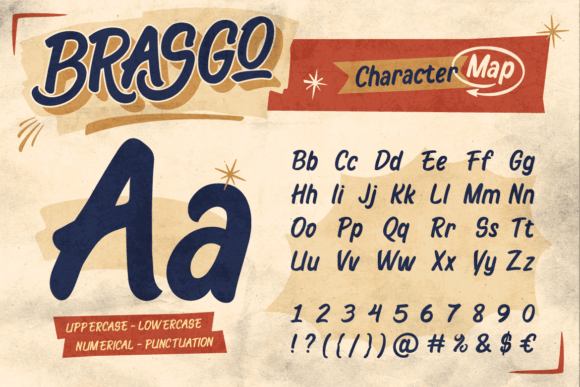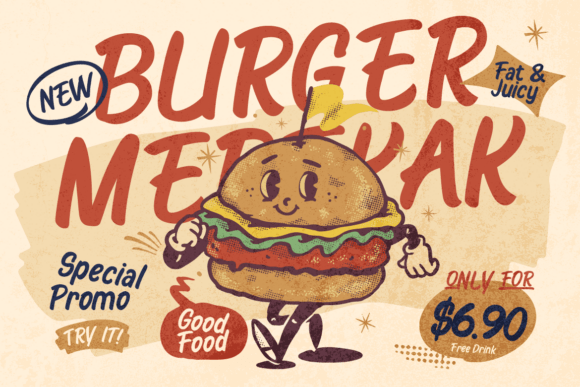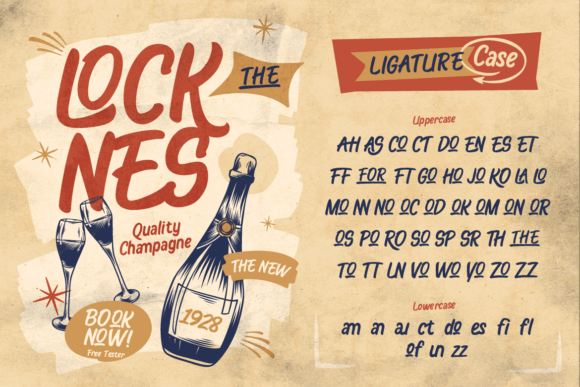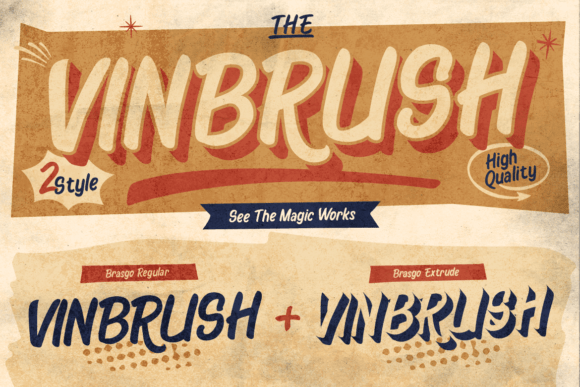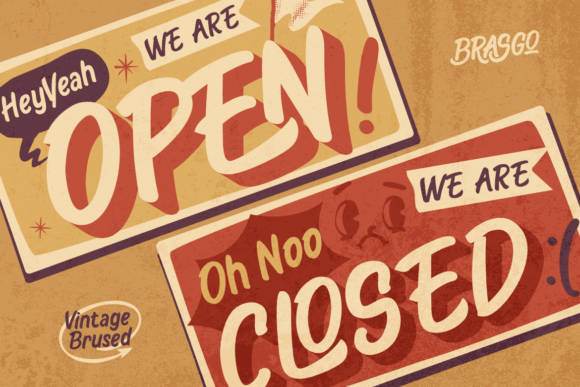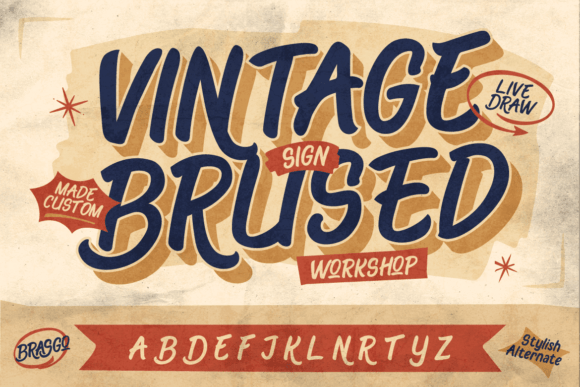
Discover the Timeless Charm of Brasgo Font: A Vintage Sign Brush-Style Delight
Are you ready to add a touch of classic elegance and vintage flair to your designs? Look no further than Brasgo Font, a stunning vintage sign brush-style font that’s sure to transport you back to the good old-school days. With its thick strokes, slightly wavy look, and perfect blend of retro charm, Brasgo is the ideal choice for designers and crafters seeking to create unique and eye-catching typography.
The Perfect Mix of Classic and Vintage Vibes
Brasgo Font boasts a distinctive, hand-crafted look that’s reminiscent of traditional sign painting. Its thick, expressive strokes and subtle waviness evoke a sense of nostalgia, making it perfect for projects that require a touch of vintage sophistication. Whether you’re working on branding, posters, invitations, or promotional materials, Brasgo’s classic charm is sure to captivate your audience and leave a lasting impression.
Versatility at Its Finest: Two Styles to Choose From
One of the standout features of Brasgo Font is its versatility. Available in two styles – Regular and Extrude – this font offers a range of creative possibilities. The Regular style is perfect for designs that require a more subtle, understated approach, while the Extrude style adds a bold, three-dimensional effect that’s sure to make your typography pop.
Brasgo Font is designed to be highly versatile, making it suitable for a wide range of creative projects. Some of the many ways you can use Brasgo include:
- Branding: Create unique and memorable logos, business cards, and letterheads that showcase your brand’s personality.
- Posters and Flyers: Add a touch of vintage glamour to your promotional materials and make them stand out from the crowd.
- Invitations and Stationery: Create beautiful, one-of-a-kind invitations, wedding cards, and stationery that exude elegance and sophistication.
- Promo Materials: Use Brasgo to add a touch of retro charm to your brochures, catalogs, and other promotional materials.
Advanced Typography Features
Brasgo Font also comes with a range of advanced typography features that give you even more creative freedom. With alternates and ligatures at your disposal, you can craft stunning typography with ease. Whether you’re looking to create intricate, interconnected lettering or simply want to add a touch of personality to your text, Brasgo’s advanced features have got you covered.
Why Choose Brasgo Font?
So why choose Brasgo Font for your next project? Here are just a few compelling reasons:
- Unique and eye-catching: Brasgo’s vintage sign brush-style design is sure to turn heads and make your typography stand out.
- Highly versatile: With two styles to choose from and a range of advanced typography features, Brasgo can be used for a wide range of creative projects.
- Easy to use: Brasgo is designed to be user-friendly, making it simple to incorporate into your workflow.
- Timeless charm: Brasgo’s classic, vintage look is sure to remain stylish for years to come, making it a great investment for designers and crafters.
Get Ready to Fall in Love with Brasgo Font
In conclusion, Brasgo Font is a vintage sign brush-style delight that’s sure to capture the hearts of designers and crafters alike. With its perfect mix of classic and vintage vibes, versatility, and advanced typography features, Brasgo is the ideal choice for anyone looking to add a touch of timeless charm to their designs. So why wait? Discover the magic of Brasgo Font today and take your typography to the next level!